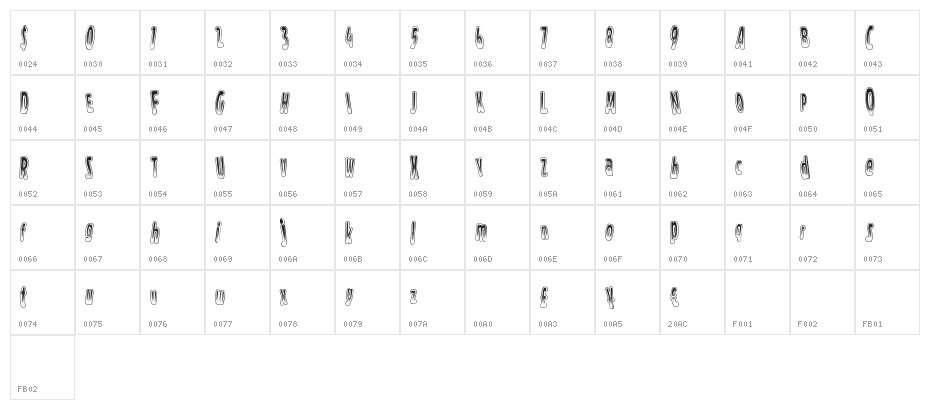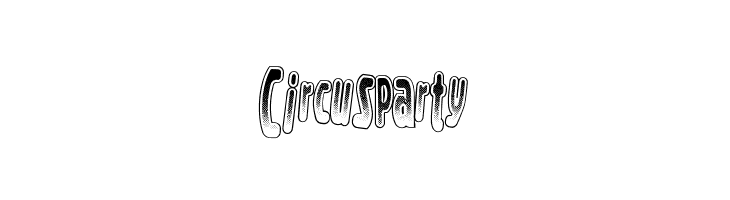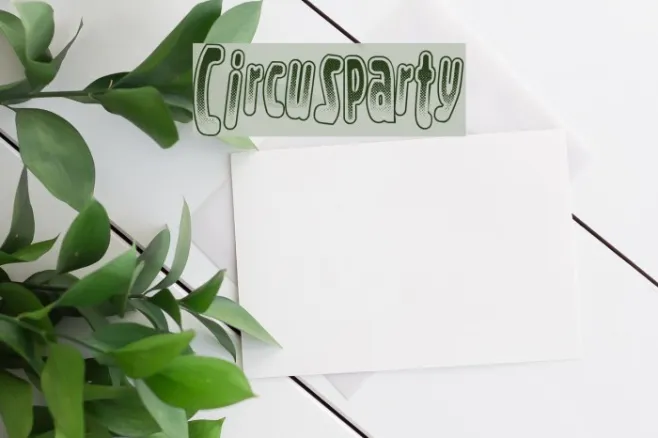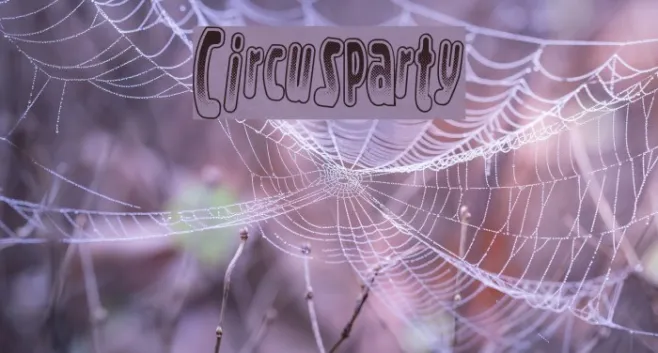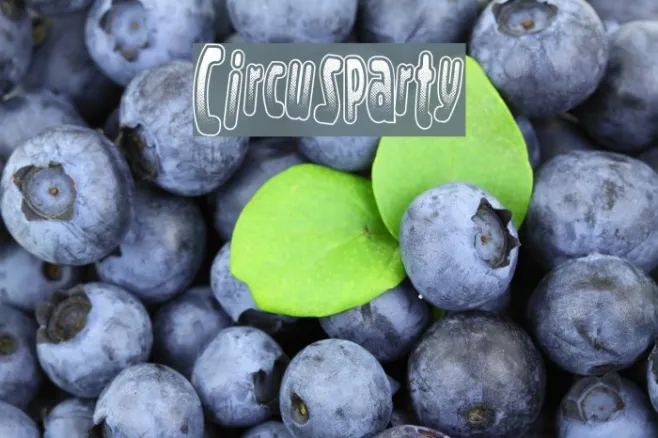
CircusParty Font
CircusParty Description
This font features a playful and whimsical design, reminiscent of vintage circus posters. Each character is outlined with a bold, black stroke and filled with a dotted texture, creating a sense of depth and movement. The letters are slightly irregular, adding to the fun and lively aesthetic. The uppercase and lowercase letters maintain a consistent style, with rounded edges and a slightly condensed form. Numbers and special characters follow the same design principles, ensuring a cohesive look across all text elements. This font is perfect for projects that require a touch of nostalgia and excitement.
| Proposed Projects | Ideal for circus-themed events, children's party invitations, playful branding, and retro posters. |